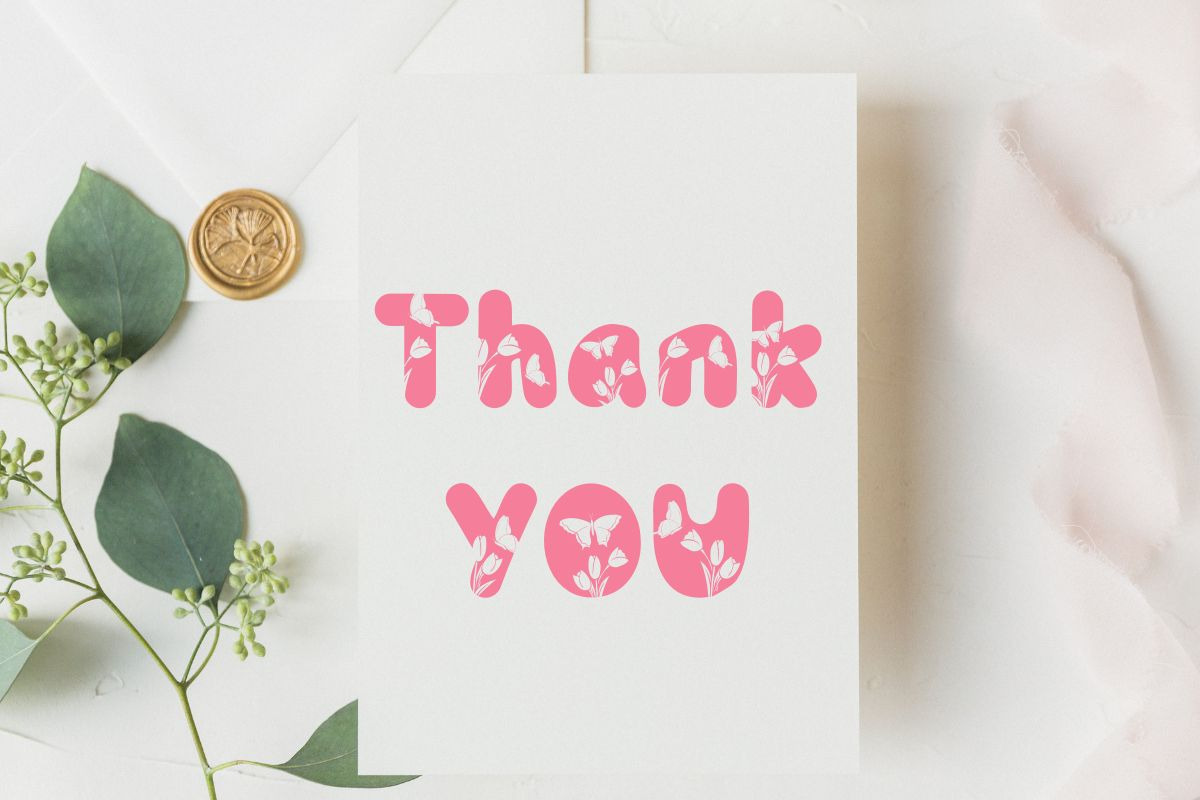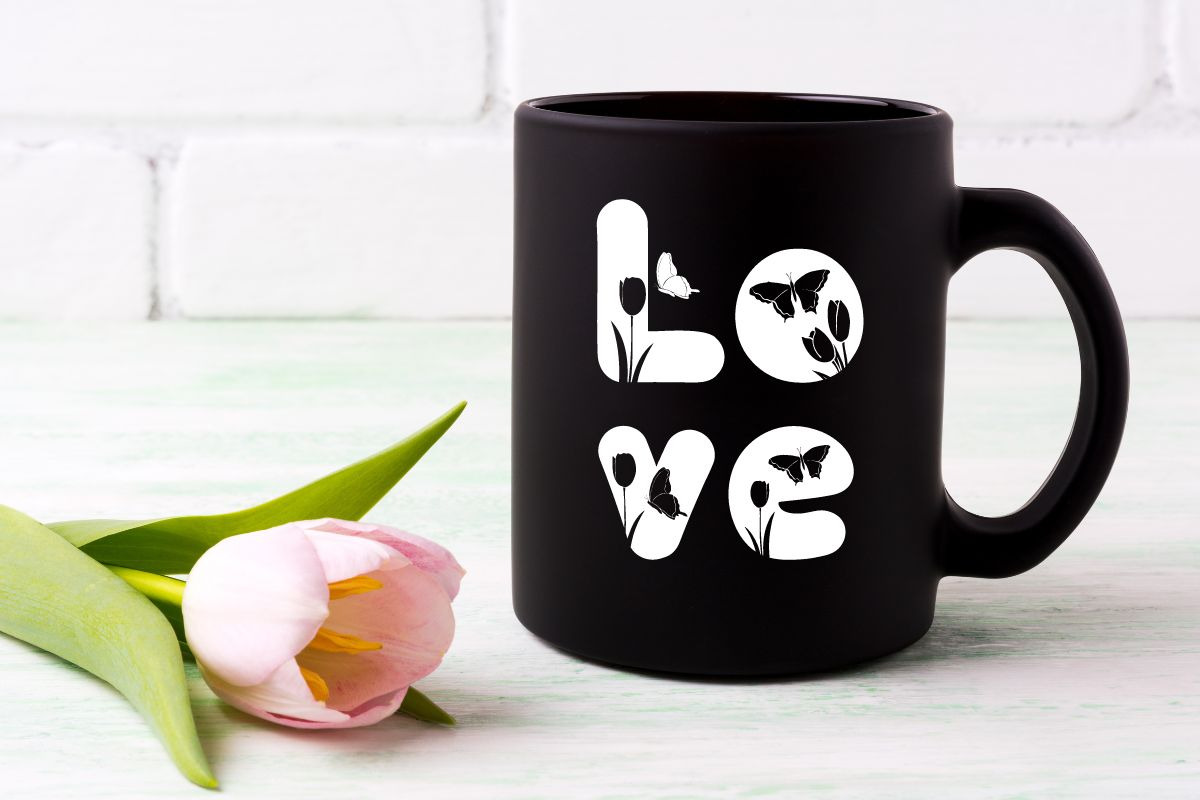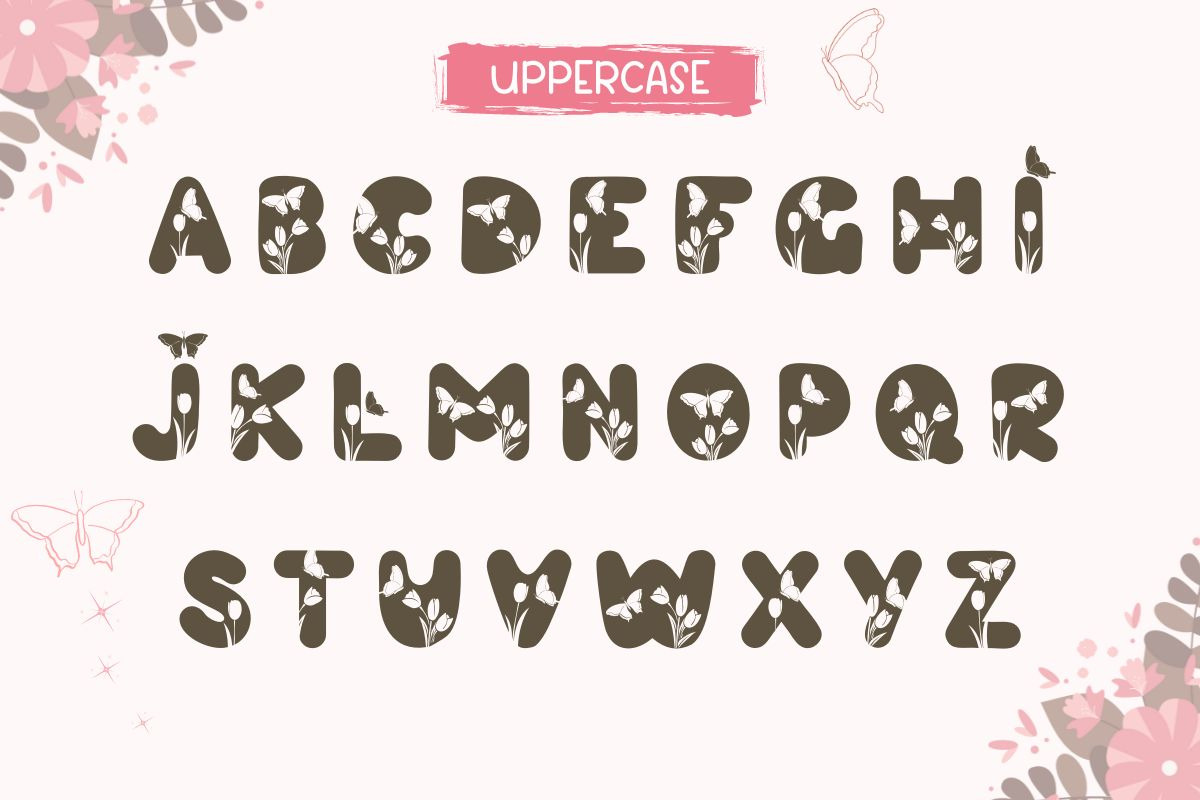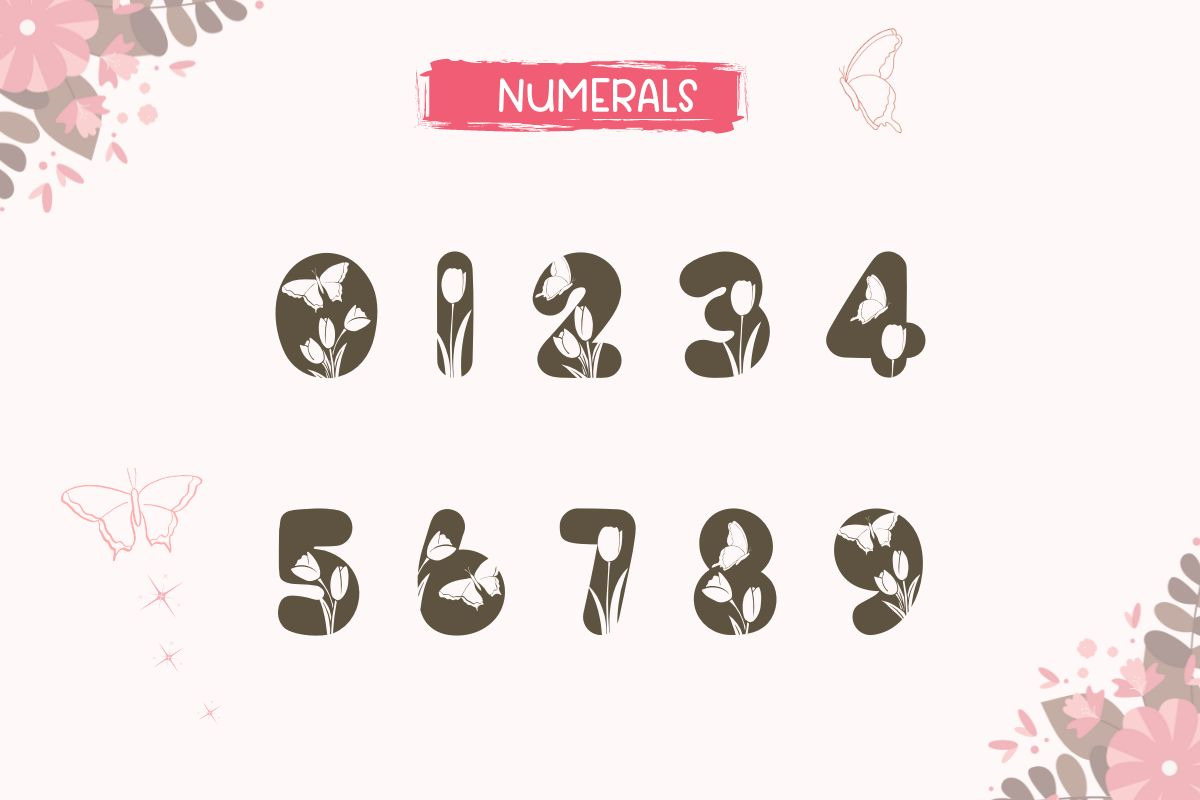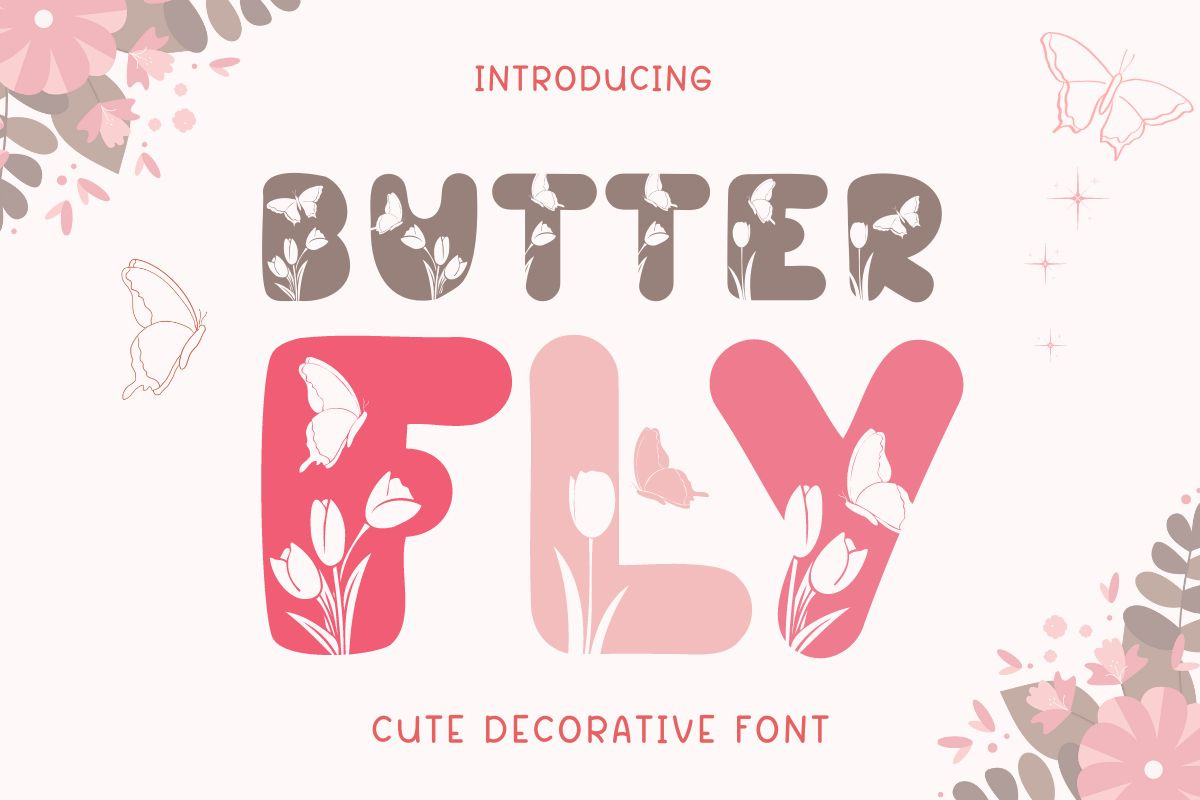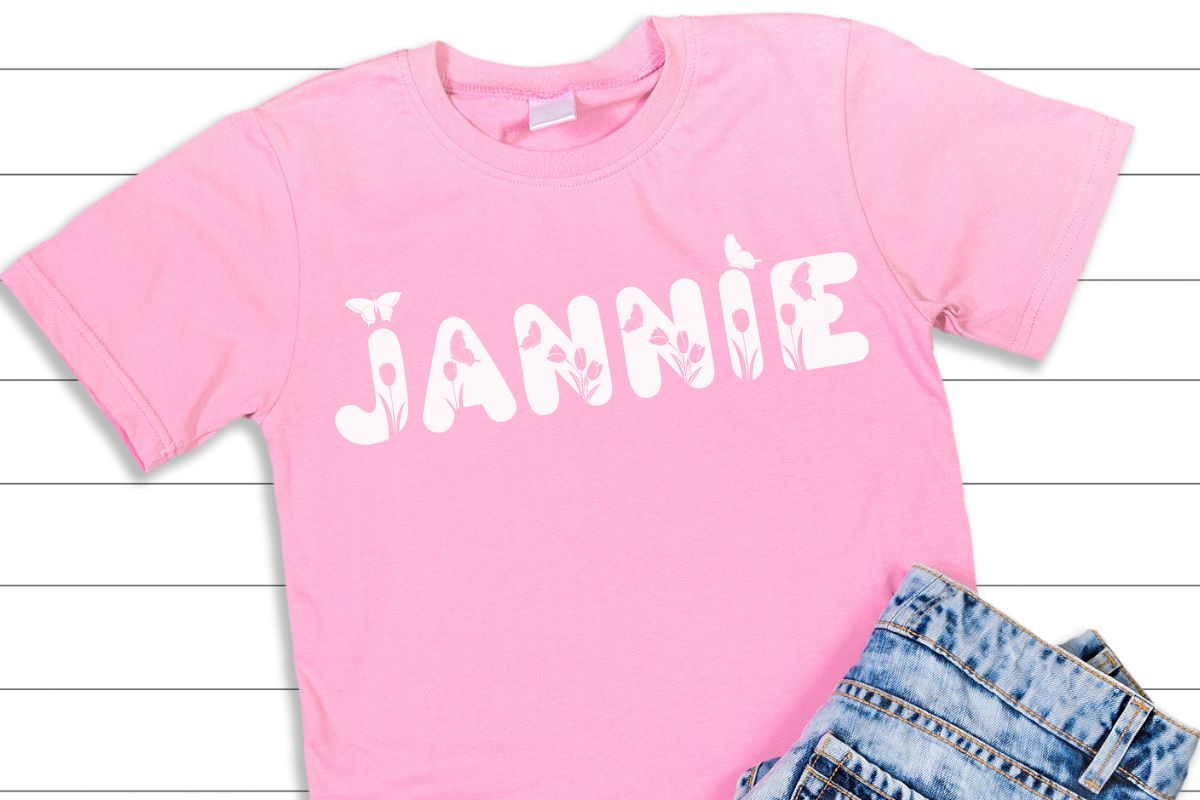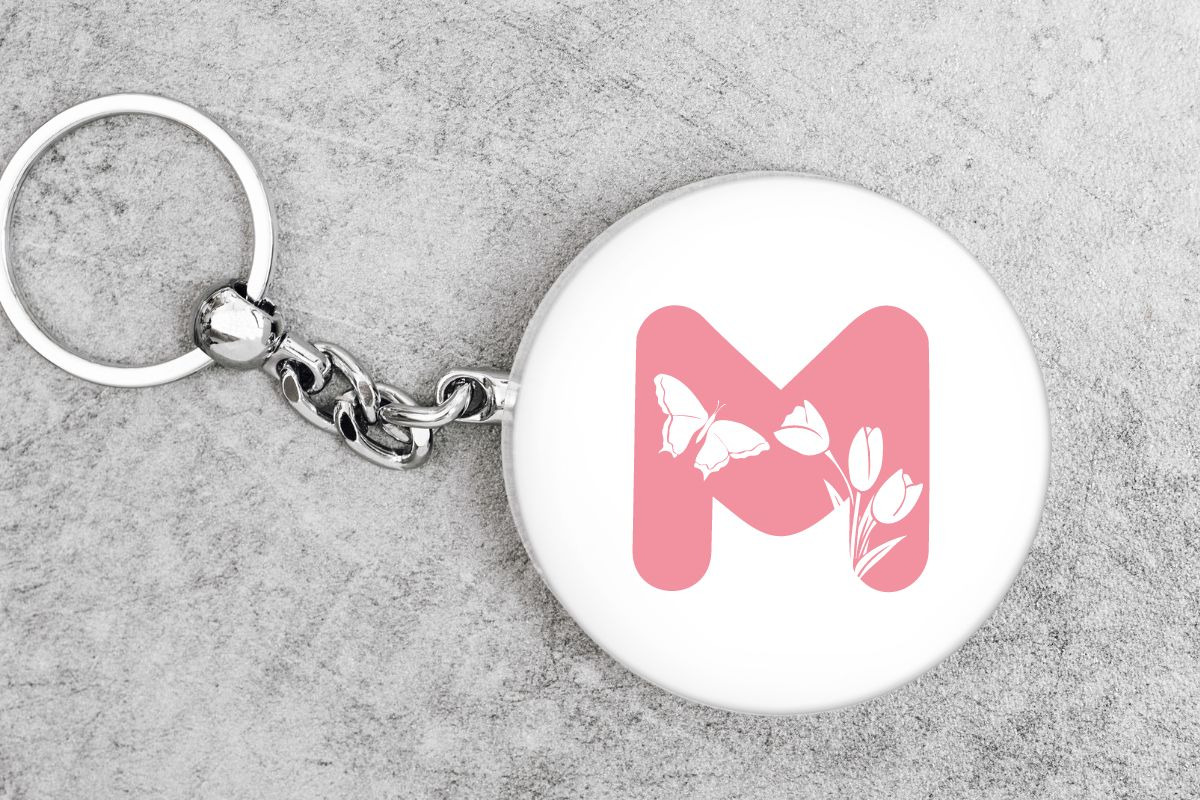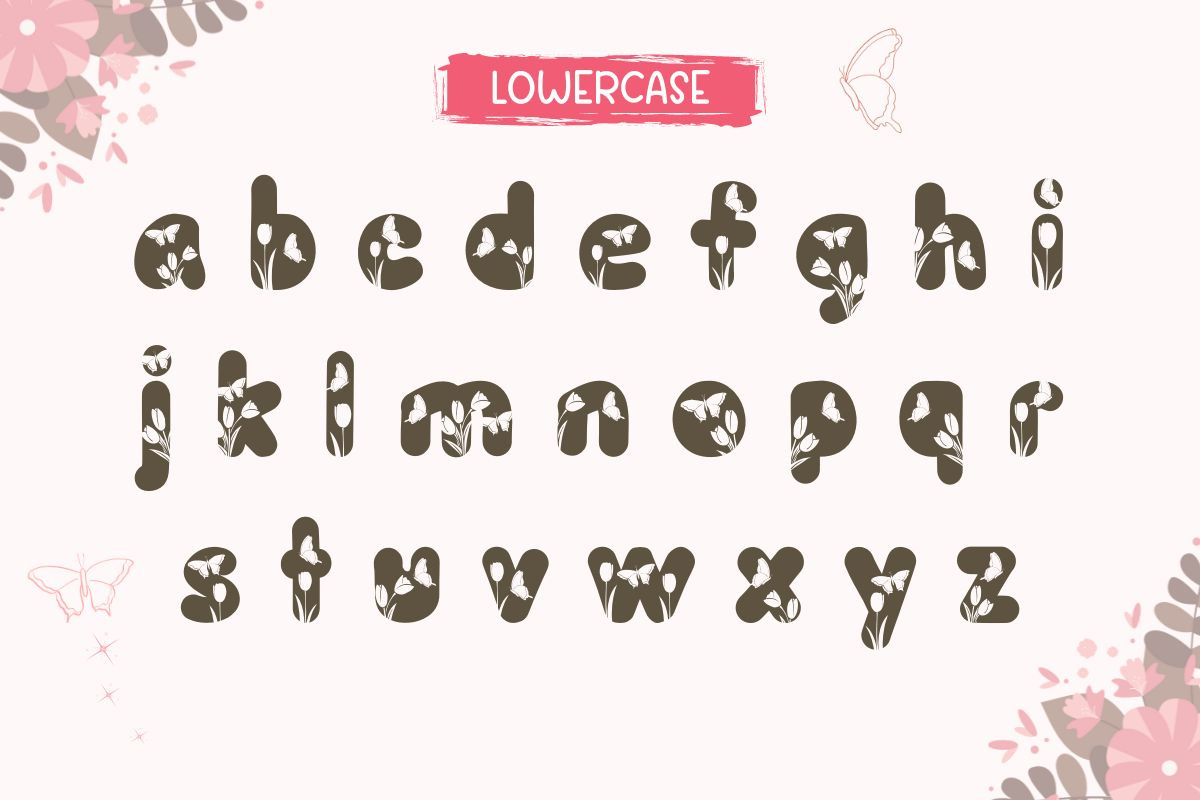
Butterfly - Decorative Font
Introducing Butterfly, a charming display font featuring tulips and butterflies incorporated into each letter. The unique design adds a cute and exotic touch to any project. You can use this font to design greeting cards, wedding invitations, stylish stationery, social media posts, and more!